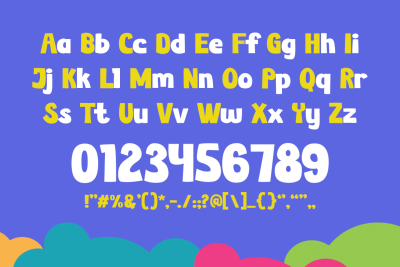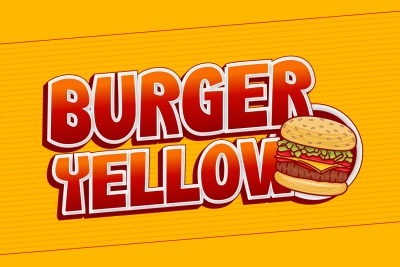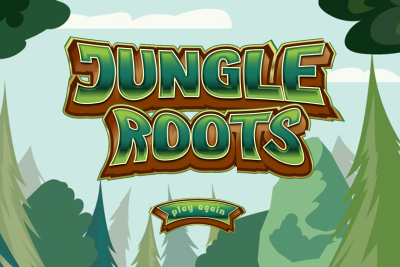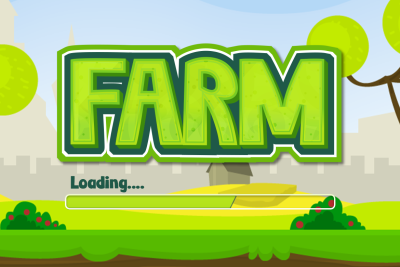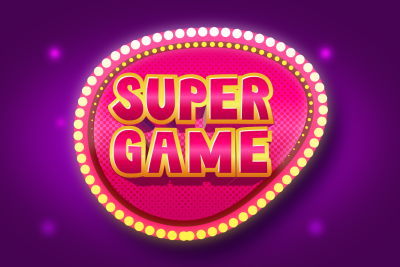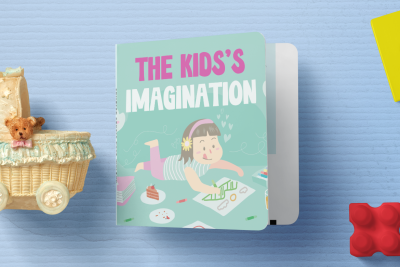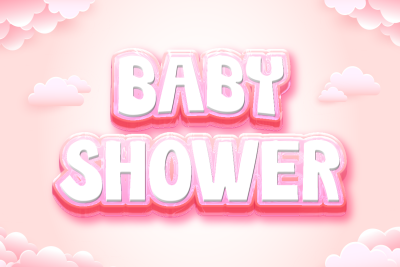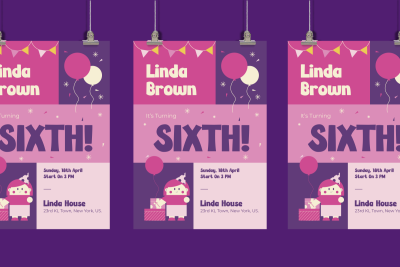
Gaming Font Cashplank offers a fresh and fun typeface that enhances creative projects with a sense of adventure and imagination. Moreover, its vibrant, nature-inspired design makes it an excellent choice for gaming-themed visuals, childrenโs designs, and projects requiring a playful yet energetic tone. The bold, rounded structure ensures easy readability, making it ideal for video game titles, mobile apps, and branding.
In addition to its appealing design, the fontโs unique character shapes combine whimsy with modern design trends. Designers can use it effectively to craft gaming logos, exciting advertisements, or playful title screens. Consequently, Cashplank captivates audiences with its charm and helps your content stand out effortlessly. Its ability to balance creativity and professionalism makes it an indispensable tool for both beginner and experienced designers alike.
Why Choose Gaming Font Cashplank for Your Designs?
One of the key advantages of Gaming Font Cashplank lies in its versatility, which allows it to fit seamlessly into various creative needs. For instance, its smooth curves and consistent weight create an approachable look, making it perfect for younger audiences or gamers seeking a light-hearted style. This quality ensures that projects targeting family-friendly markets gain instant appeal.
Furthermore, this font delivers excellent performance across digital platforms, ensuring high-quality rendering on different screens. Whether you’re designing for desktop games, mobile apps, or streaming visuals, Cashplank maintains its crisp and vibrant look. It also works beautifully for printed materials such as posters, brochures, or packaging that demand bold and engaging typography.
Additionally, Gaming Font Cashplank supports a wide range of languages, which makes it ideal for international projects. This multilingual capability allows designers to cater to diverse markets without compromising style or clarity. For this reason, Cashplank has become a go-to choice for projects aiming to combine accessibility with creativity.
Ultimately, Gaming Font Cashplank empowers you to craft a cohesive and visually appealing design language. Its playful vibe, paired with professional structure, brings excitement and character to your projects. As a result, it becomes an indispensable tool for designers seeking to elevate their work. Whether you’re working on a bold logo or an engaging in-game UI, this font delivers a perfect balance between form and function.